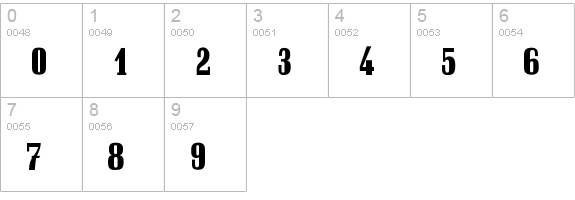
Gustav Font Details
Gustav font is a modern and versatile typeface that exudes elegance and sophistication. With its clean lines and stylish curves, this font is perfect for a wide range of design projects, from branding to editorial design. The striking contrast between thick and thin strokes gives Gustav font a unique and eye-catching appeal that is sure to make your text stand out. What sets Gustav font apart is not only its aesthetic appeal but also the fact that it is available for free. That's right - you can download this stunning font at FontsMarket.com without any cost. Whether you're a seasoned designer looking to add a new font to your collection or a beginner exploring typography for the first time, Gustav font is a fantastic choice that won't break the bank. So why wait? Head over to FontsMarket.com today and start using Gustav font to elevate your design projects to the next level. With its timeless elegance and modern flair, this font is sure to become a favorite in your toolkit. Download Gustav font now and let your creativity shine!